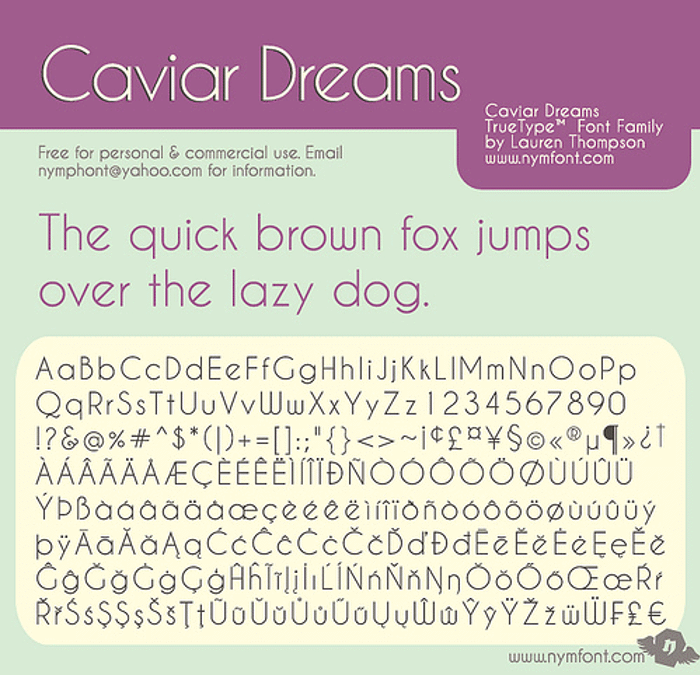
Caviar Dreams Font
New-wav Geometric Sans serif, remix/related font to my Champagne & Limousines
almost 15 years agoWell-proportioned and very useful. Lovin' those oblique "e"s!
10 years agoI meant kinda like Kabel, but not the same. disregard my earlier post.
3 years agoWow! This is like the bendy font!